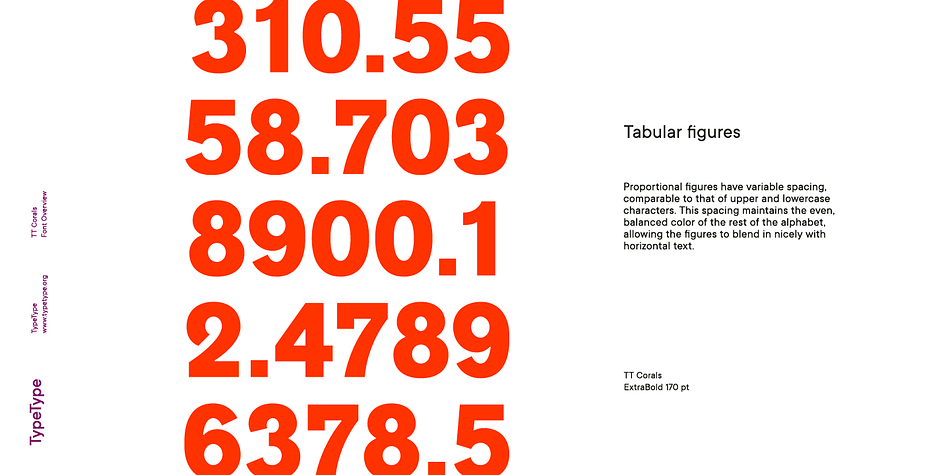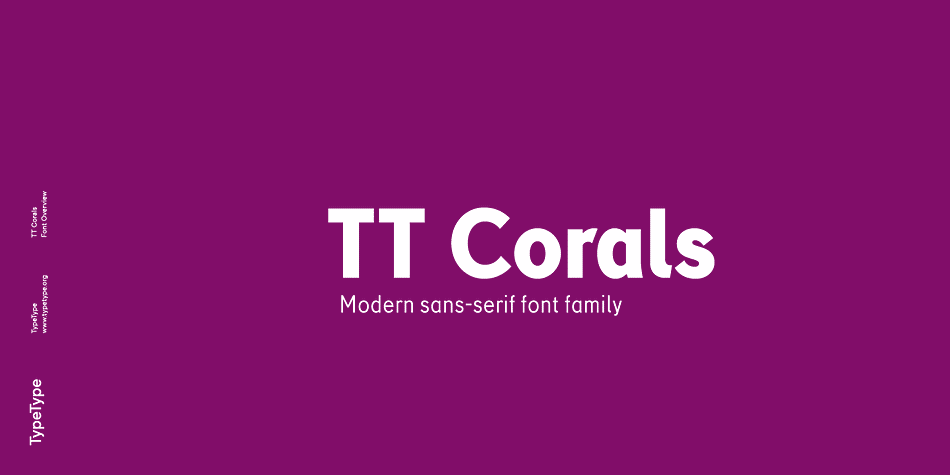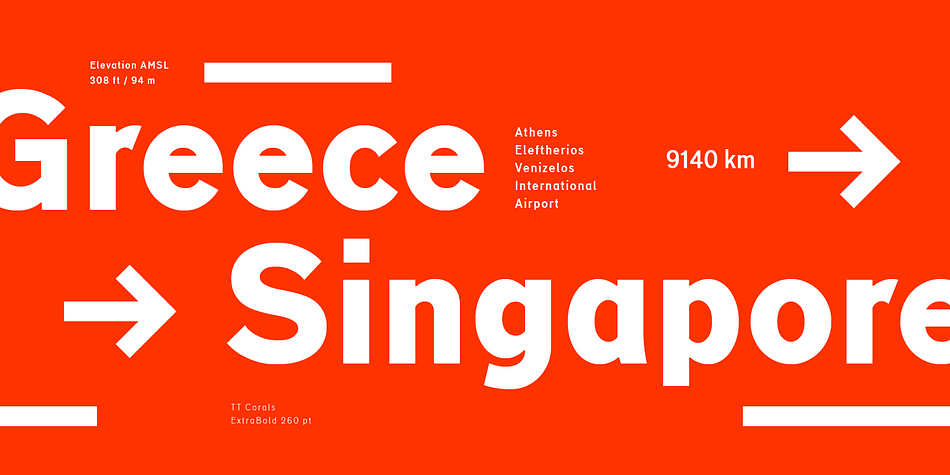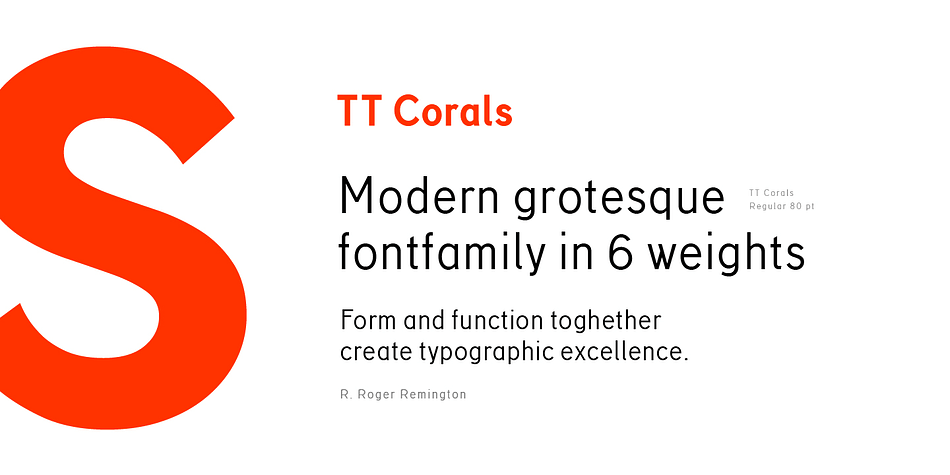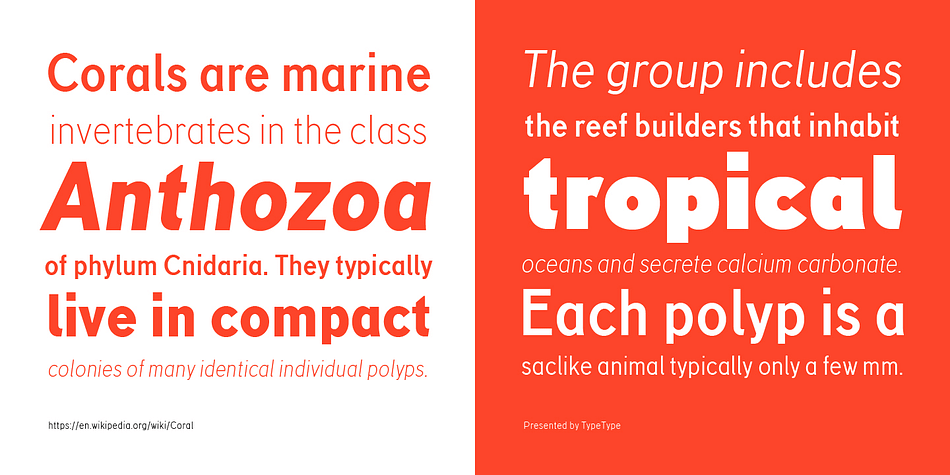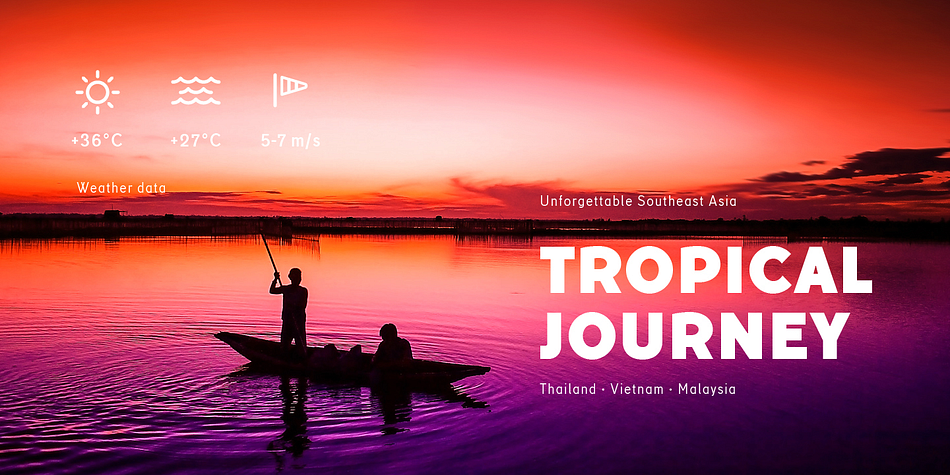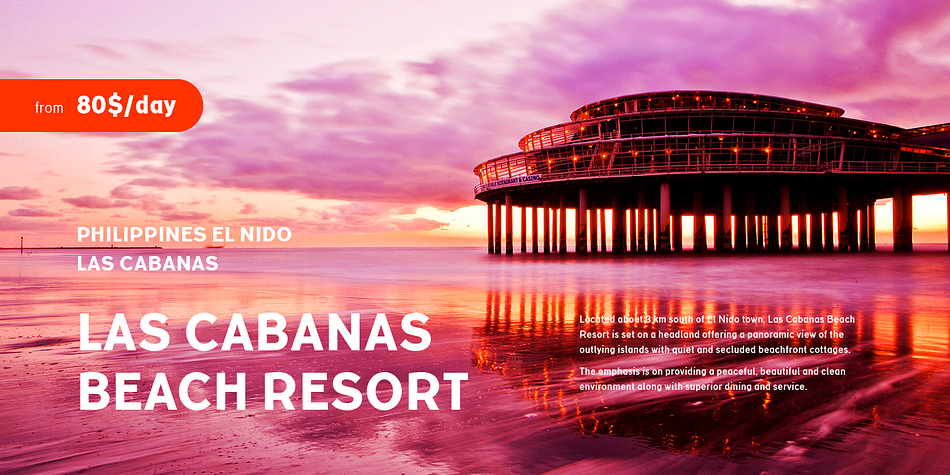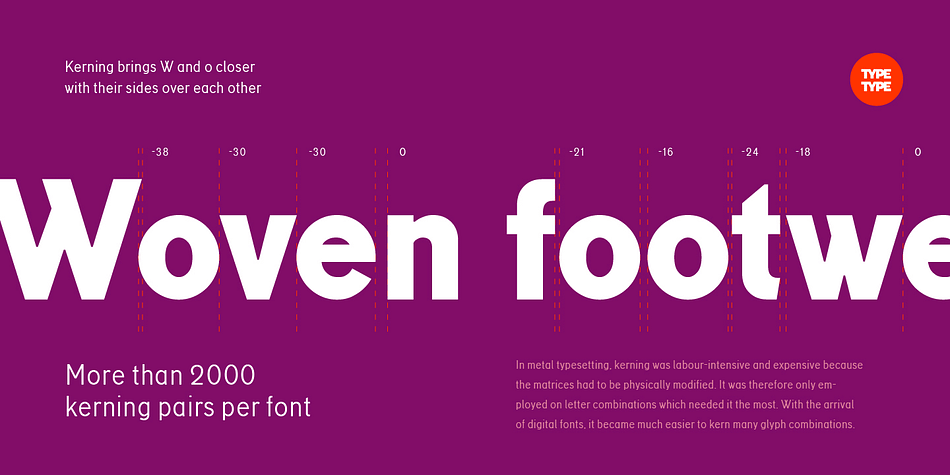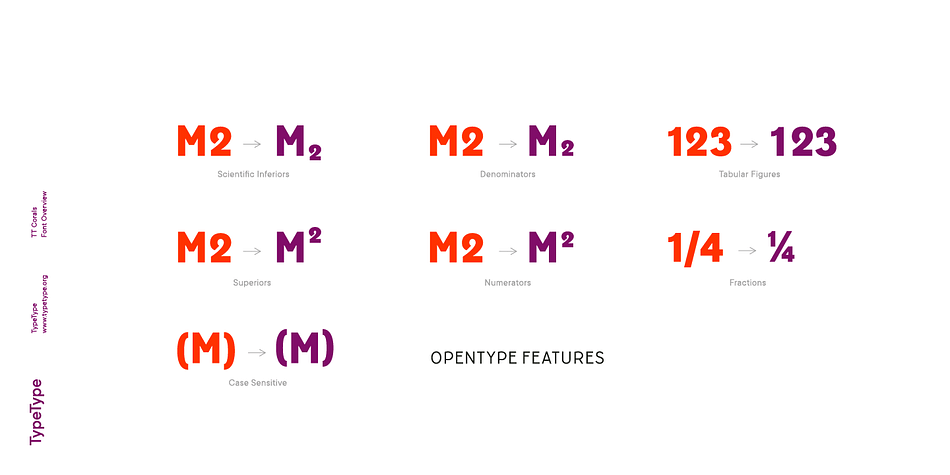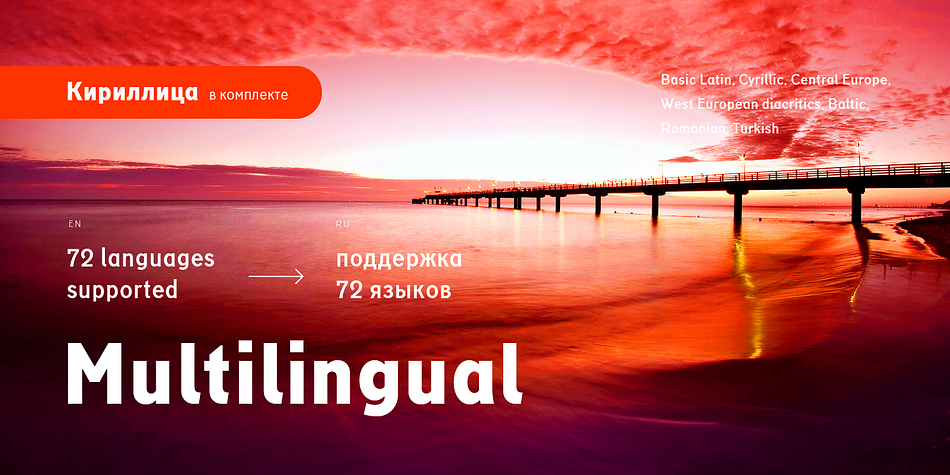
Designed by Ivan Gladkikh and Olexa Volochay, TT Corals is a sans serif font family. This typeface has twelve styles and was published by Typetype.
TT Corals is a modern humanistic sans-serif which has many typical traits of the beginning of the 20th century. For an increased functionality of the font family we’ve created 6 typefaces of various weights: Thin, Light, Regular, Bold, Extrabold, Black.
The distinctive smoothness of the lines and separate elements allows using TT Corals for different design areas. For instance, it will perfectly fit for the topics of classical literature or music, and any other diverse creative areas of humans’ activities. TT Corals inspires with its freshness and novelty and gives new ideas for your creativity and art.